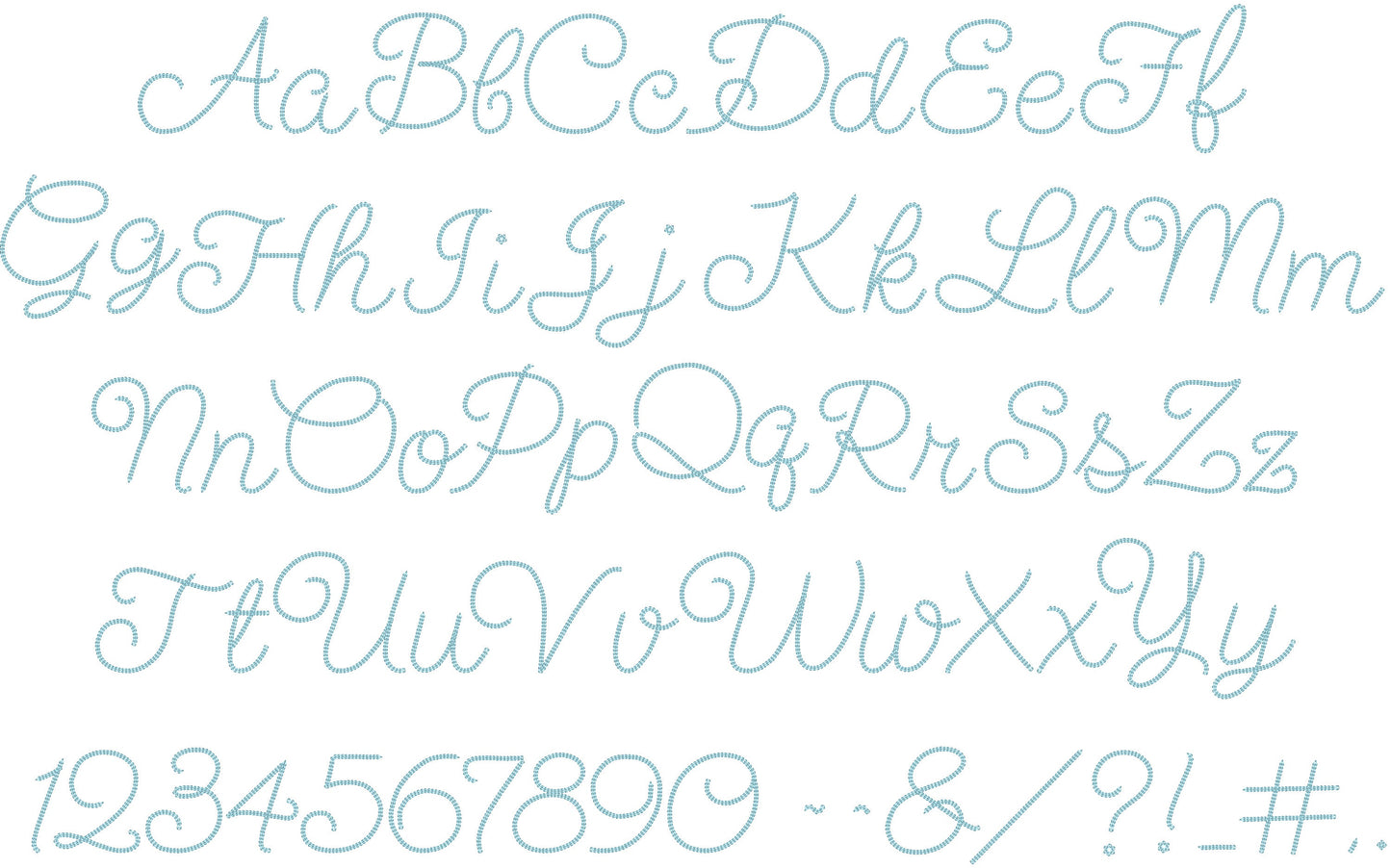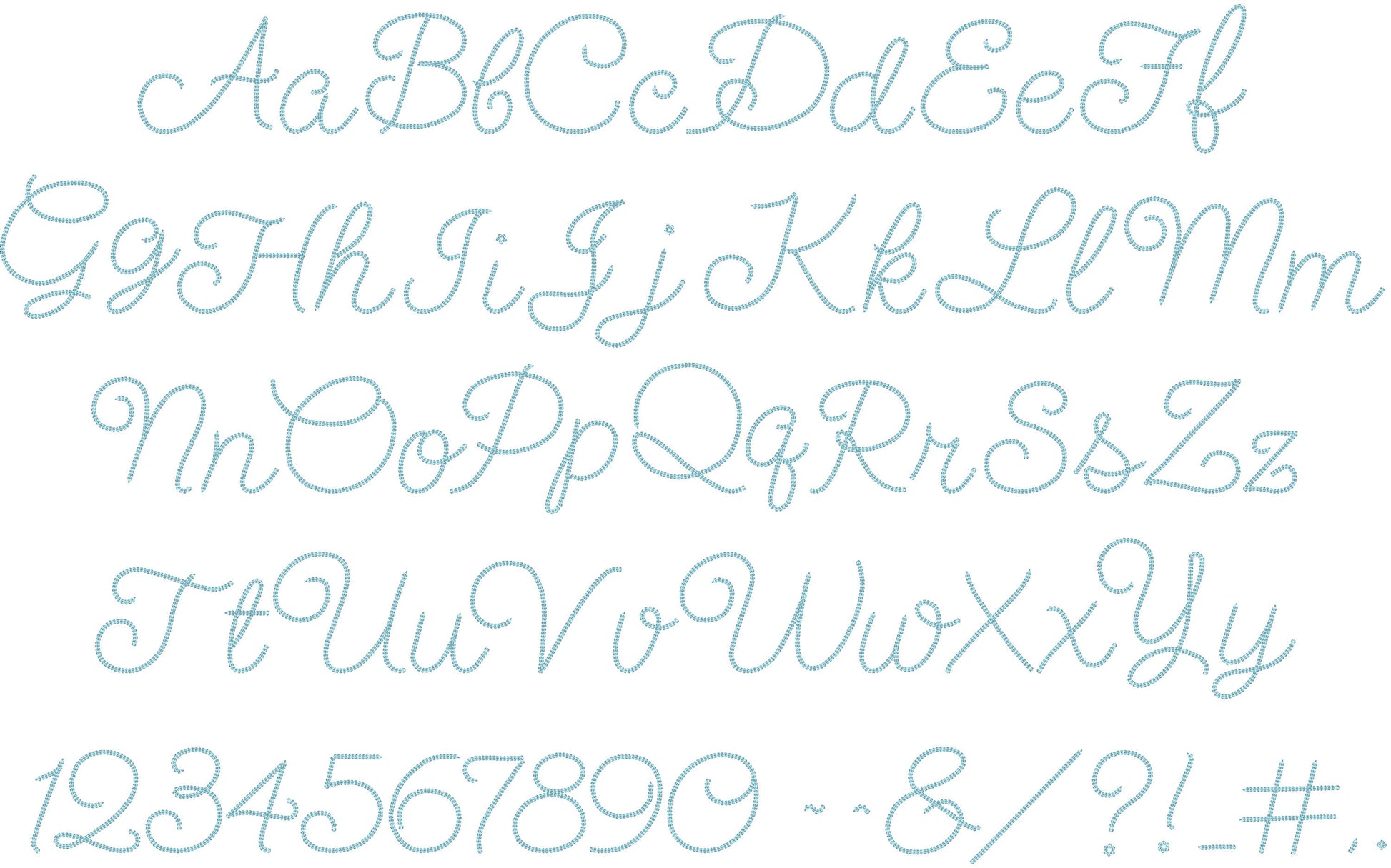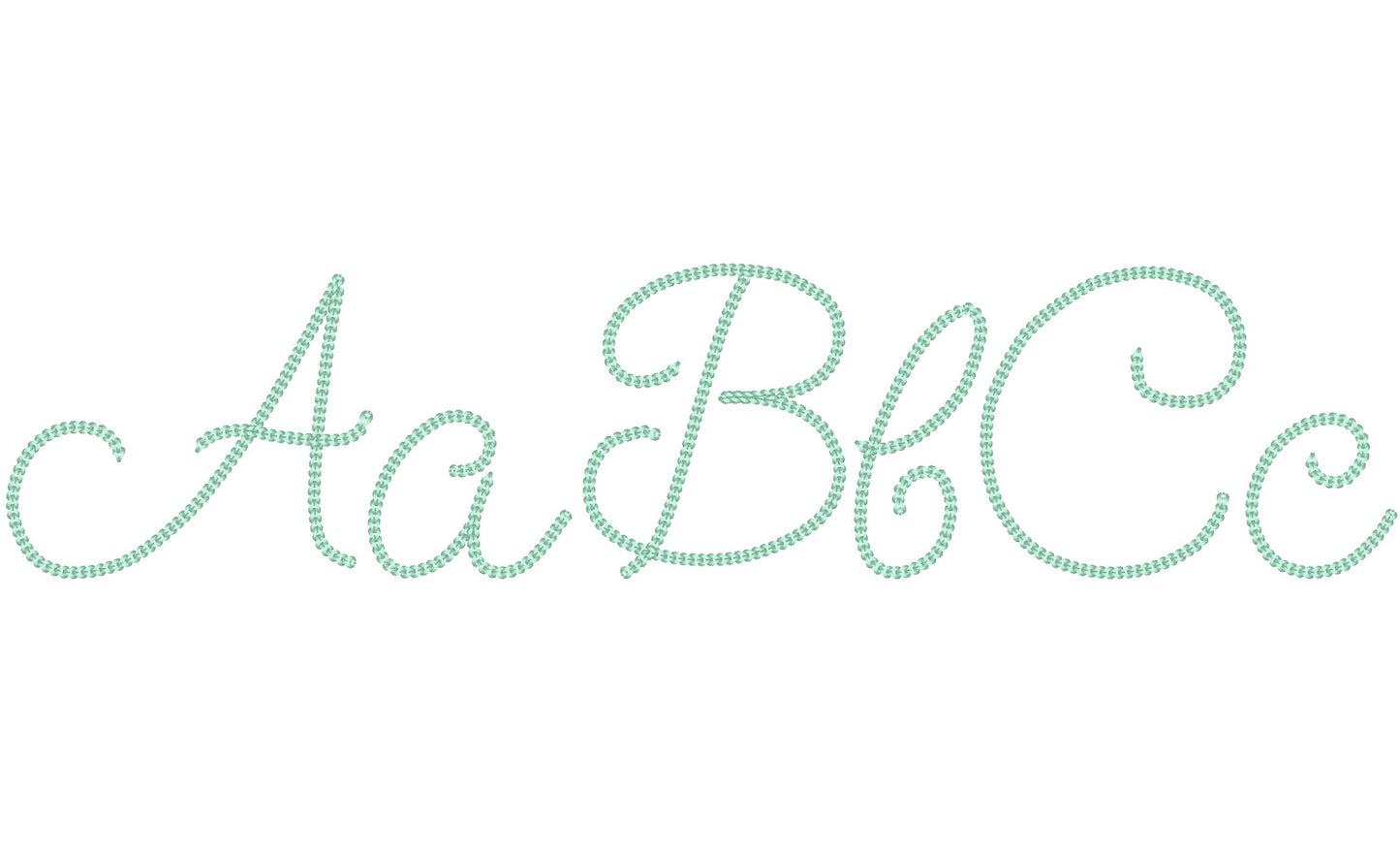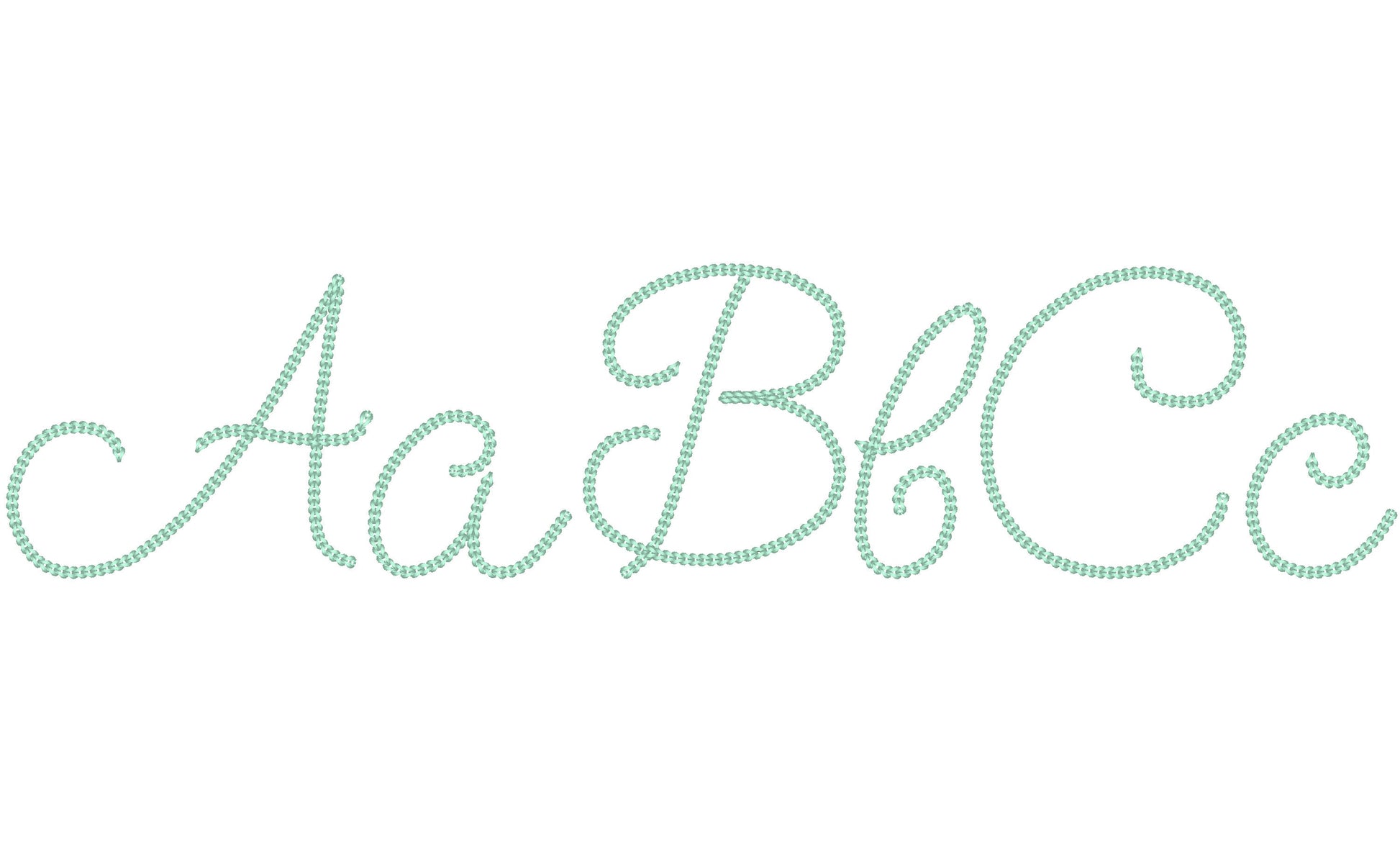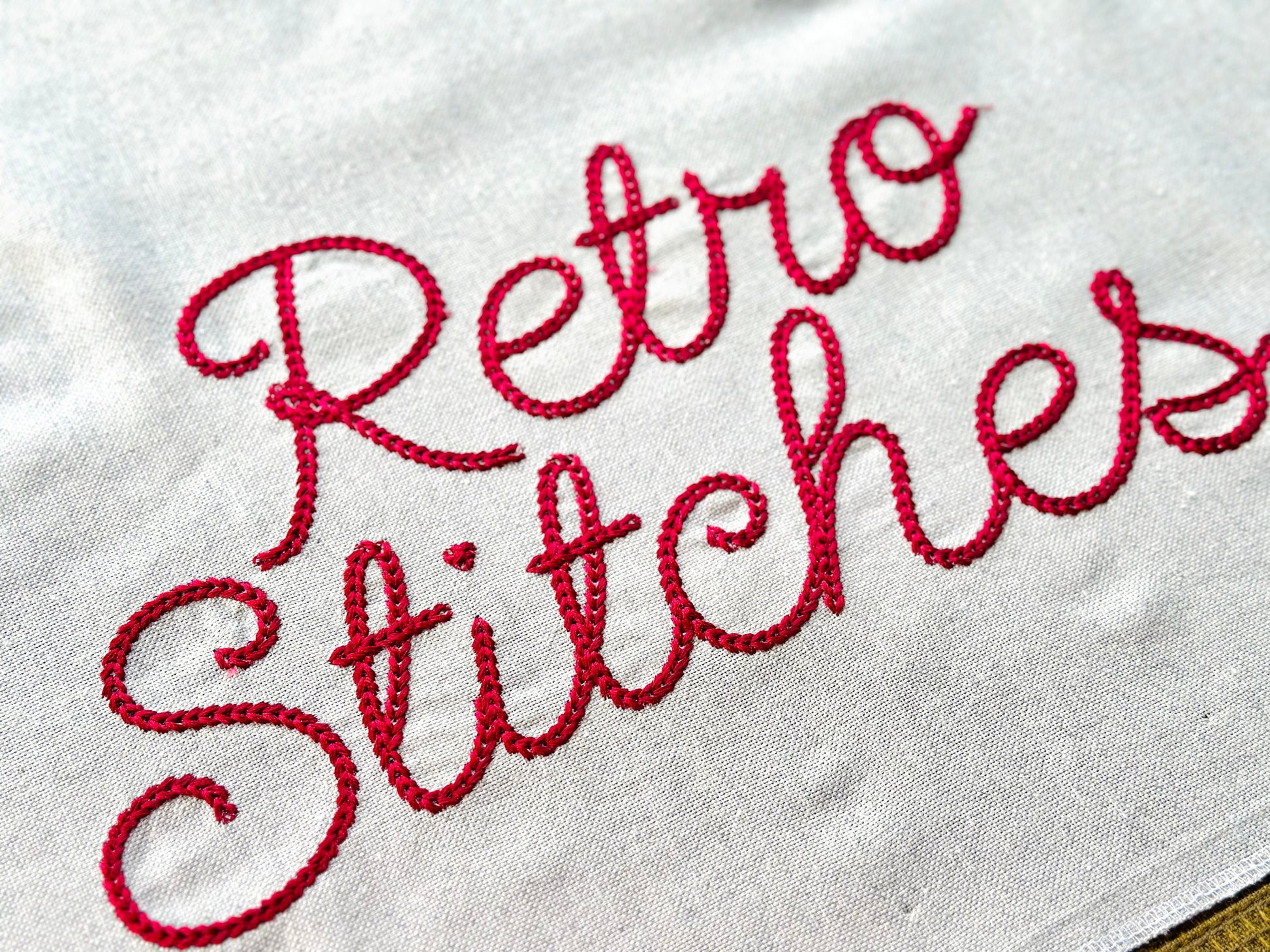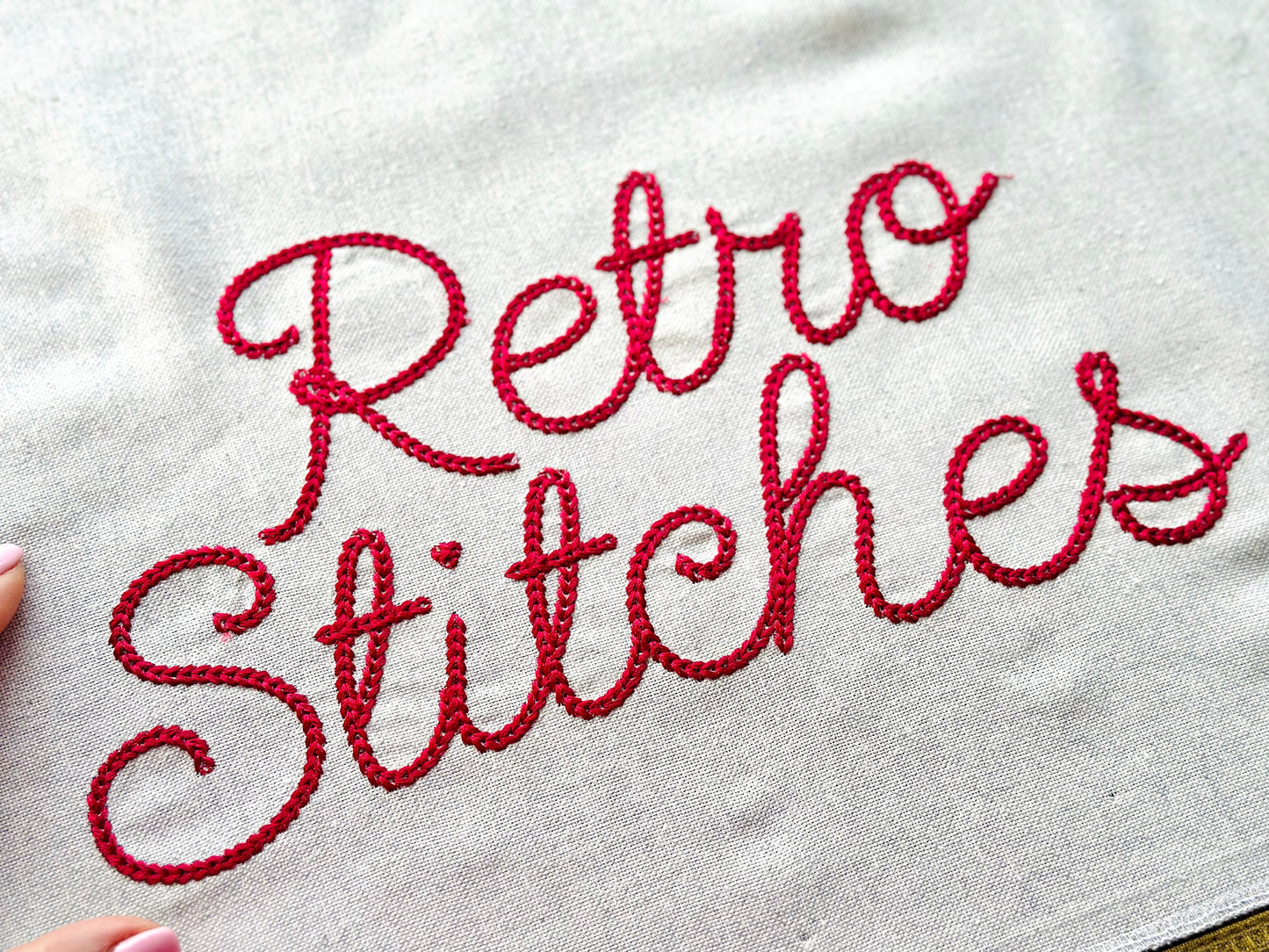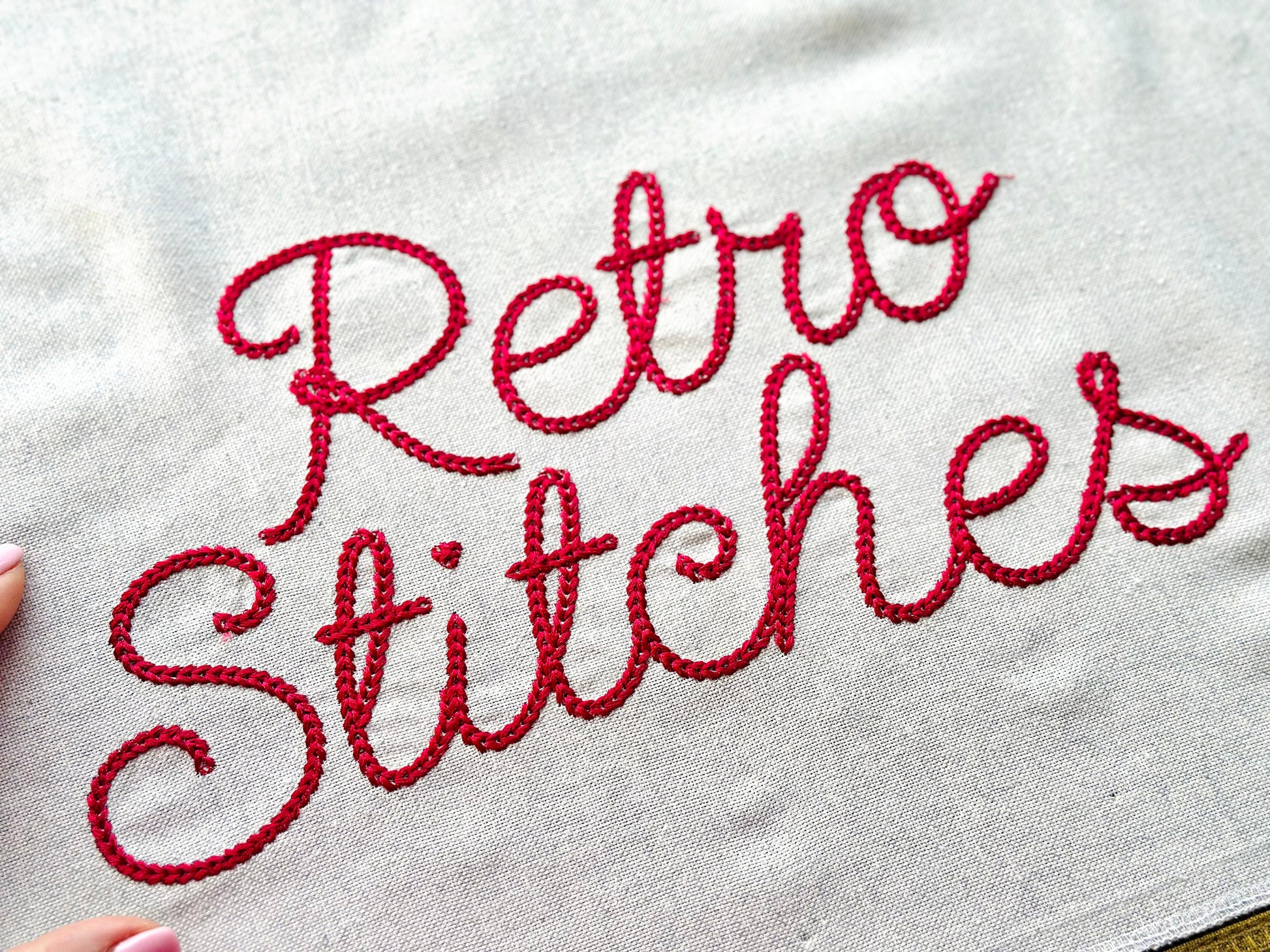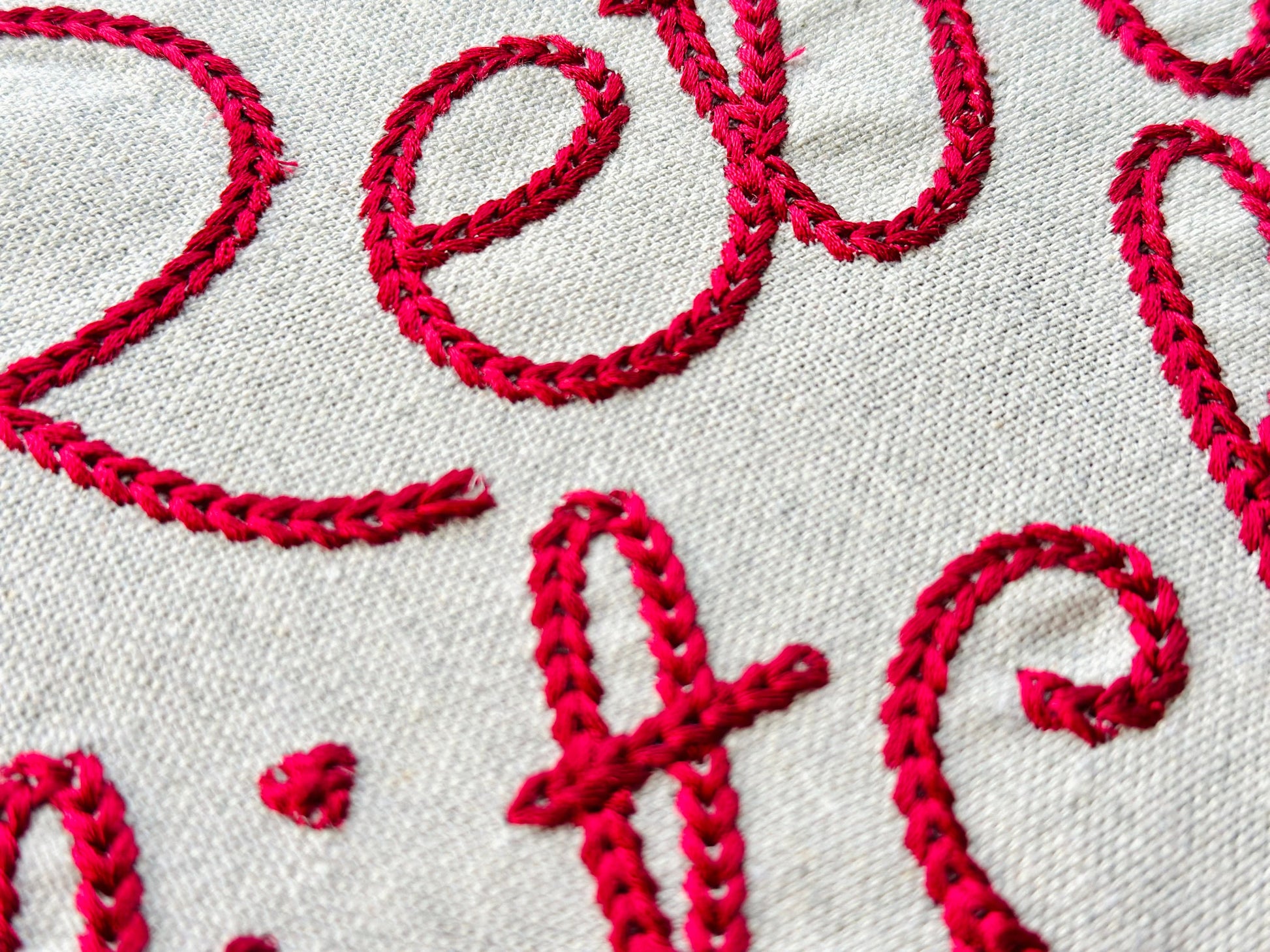
The quality is unmatched it stitches out perfect i highly recommend purchasing this file!
I used this faux chain stitch font a few times now and it’s easily one of my favorites!! Thank you! Love the size and style
Love how thick this font is! Easy to see
Looks great! Very thick as listed in description, requites a 2nd pass on all letters
The lettering was bold and heavy!!
Font looks great on the bandanas that I made for my babies rodeo themed birthday party.
Beautiful for initials and monograms!
I like this font it's different
This is such a fun font to add to your collection! The stitch design is so classic!
love love this font! I used it to make sweaters for my daughter's volleyball team. amazing!
HOLY THICK! Thick is in the title and it is no joke! The two words I wanted to stitch on a baby shirt was over 40,000 stitches. I ended up skipping stitches because it was just too much.
This stitched out beautifully, but it is a very high stitch count if that is of concern. End product is beautiful!
It did stitch out well, but is more time consuming than I thought it would be. I used for a baby blanket and I think I chose the wrong density-I’d use this size for an adult sized project-but it’s my mistake, the font itself is lovely. Just make sure you choose the right degree of boldness for your project.
Really lovely font for embroidery.
Beautiful font! Love it.
I love this embroidery font it comes out beautiful!